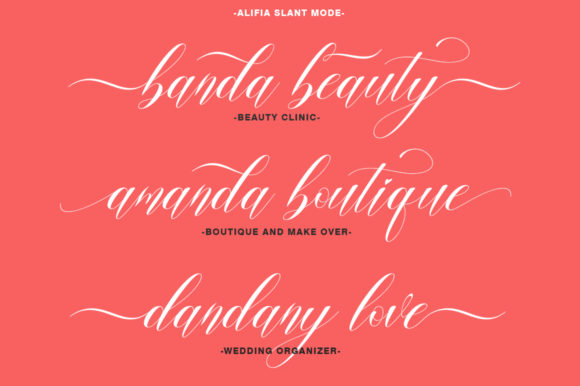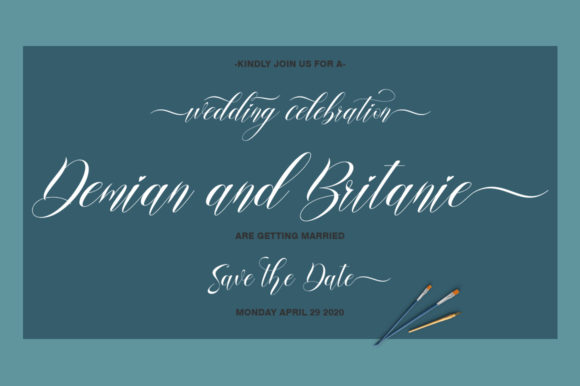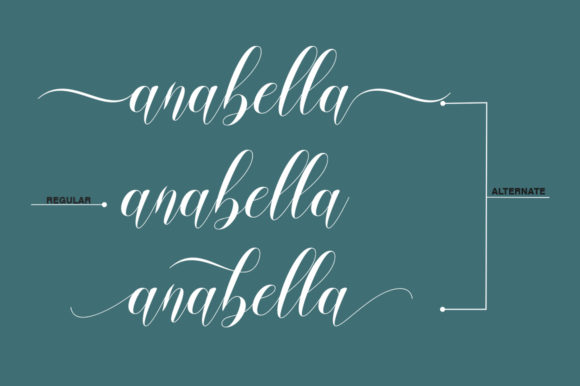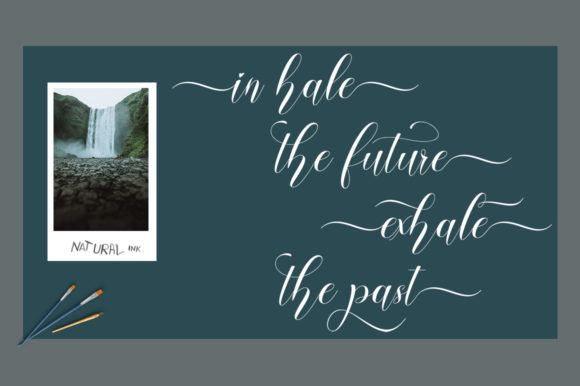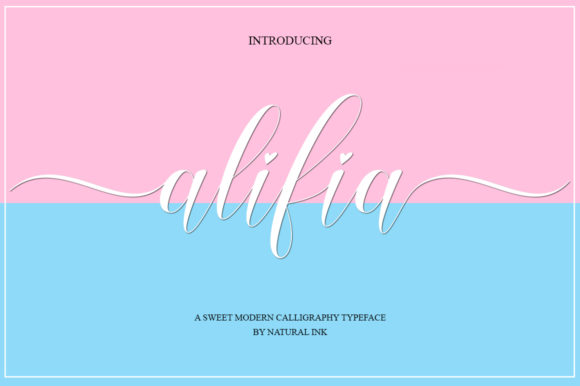
Introducing Alifia Font: The Modern Calligraphy Font for Creative Expression
Are you a designer, crafter, or creative enthusiast looking for a unique and versatile font to elevate your projects? Look no further than Alifia Font, a stunning modern calligraphy font that embodies the perfect blend of elegance and playfulness. With its curvy, casual lines and extensive range of alternate characters and swashes, Alifia is the ideal choice for anyone seeking to add a touch of sophistication and whimsy to their designs.
What Makes Alifia Font So Special?
Alifia Font is a modern calligraphy font that boasts a distinctive, hand-crafted feel. Its curvy lines and fluid strokes evoke a sense of movement and energy, making it perfect for projects that require a touch of dynamism. The font’s casual, laid-back vibe also makes it an excellent choice for designs that need to convey a sense of friendliness and approachability.
Key Features of Alifia Font
• Curvy and Casual Lines: Alifia Font features beautiful, flowing lines that give it a unique and distinctive look.
• Extensive Alternate Characters: The font includes a wide range of alternate characters, allowing you to add variety and interest to your designs.
• Swashes: Alifia Font also features a selection of swashes, which can be used to add a touch of elegance and sophistication to your designs.
• Modern Calligraphy Style: Alifia Font is a true modern calligraphy font, making it perfect for designers and crafters who want to create projects that feel fresh and contemporary.
Alifia Font is an excellent choice for designers and crafters who work on a variety of projects, including:
• Branding and Logo Design: The font’s unique, hand-crafted feel makes it perfect for creating custom logos and brand identities.
• Stationery and Invitations: Alifia Font is ideal for designing beautiful stationery, invitations, and greeting cards.
• Digital and Print Media: The font can be used in a variety of digital and print media, including social media graphics, blog posts, and magazine ads.
• Crafting and Scrapbooking: Alifia Font is also perfect for crafters and scrapbookers who want to add a personal touch to their projects.
Tips for Using Alifia Font
• Experiment with Alternate Characters: Don’t be afraid to try out different alternate characters to add variety and interest to your designs.
• Use Swashes Wisely: Swashes can add a touch of elegance to your designs, but use them sparingly to avoid overwhelming the text.
• Mix and Match with Other Fonts: Alifia Font pairs well with a variety of other fonts, so feel free to experiment with different combinations to find the perfect look.
Alifia Font is a stunning modern calligraphy font that offers a unique blend of elegance and playfulness. With its curvy, casual lines and extensive range of alternate characters and swashes, it’s the perfect choice for designers, crafters, and creative enthusiasts who want to add a touch of sophistication and whimsy to their projects. Whether you’re working on branding and logo design, stationery and invitations, or digital and print media, Alifia Font is sure to become a favorite in your font collection.